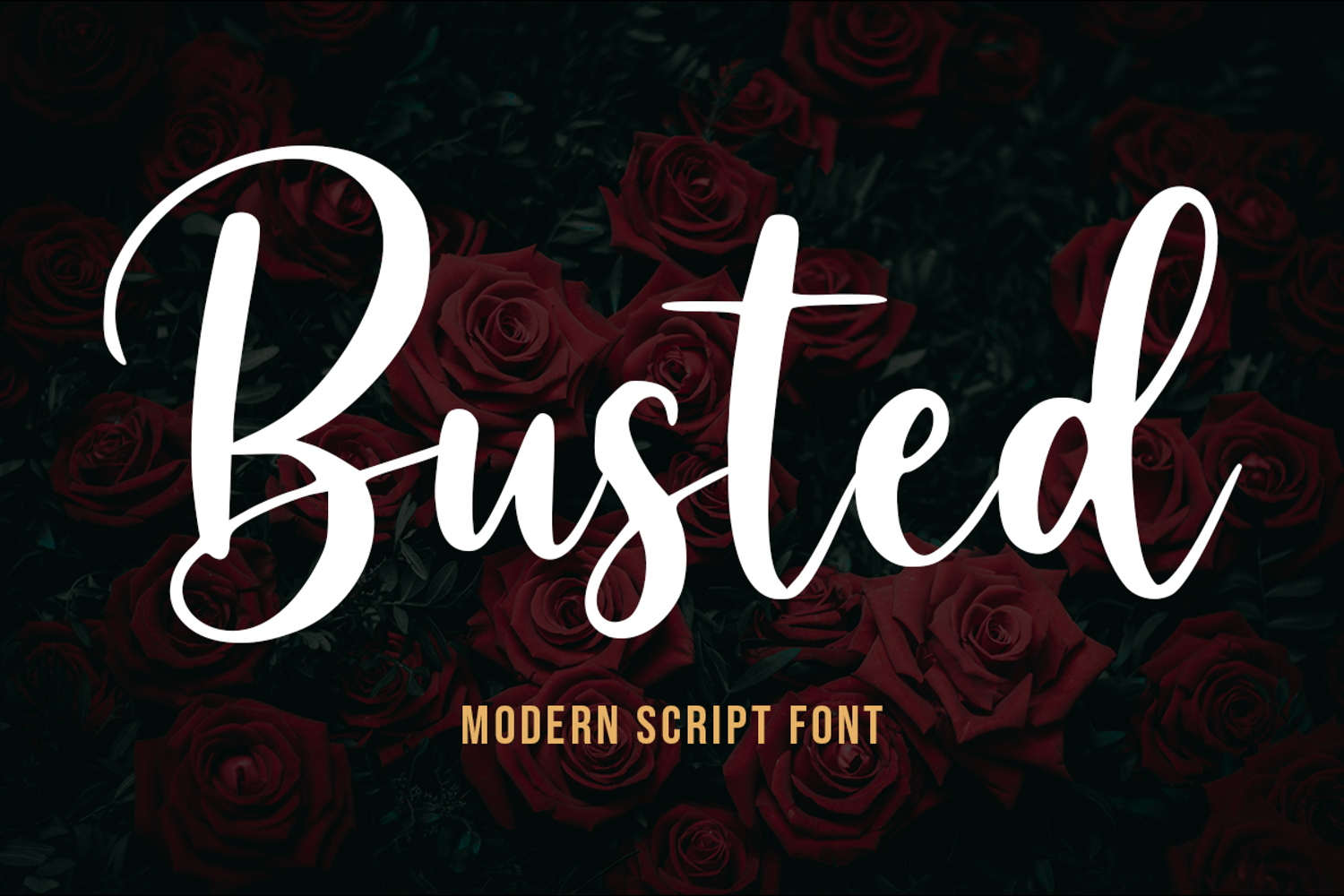
Busted – Modern Script Font
Busted is an elegant, playful, and character-rich modern script font. Featuring smooth and relaxed hand-lettered curves, this typeface delivers a warm and approachable feel while maintaining a professional polished aesthetic.
Key Features
Modern Calligraphy Style: Dynamic thick-to-thin strokes that create a natural, artistic touch.
Playful & Vibrant Aesthetics: Pairs seamlessly with pastel palettes or bold, colorful designs.
High Legibility: Thoughtfully crafted letterforms ensure effortless readability despite its handwritten style.
Best Used For
Branding & Logos: Beauty brands, fashion labels, bakeries, creative studios, and lifestyle products.
Product Packaging: Cosmetic labels, food packaging, and custom merch.
Social Media & Marketing: Instagram posts, promotional banners, quotes, and digital ads.
Print & Events: Wedding stationery, greeting cards, book covers, apparel, and tote bags.